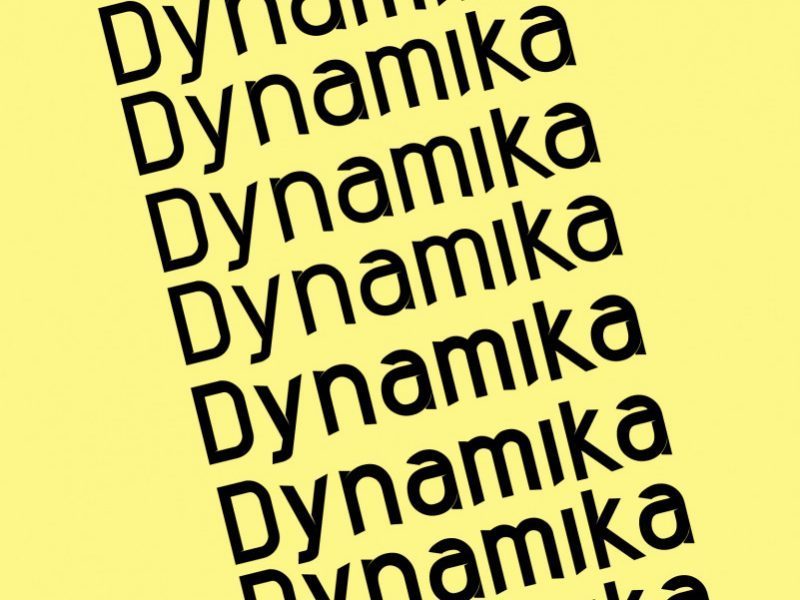
Dynamika Sans Typeface
This is dynamika, a 2-weight serifless type designed for title and body, the creation was inspired by the impression and attempt to perceive, unravel the dynamics of the human mind and the universe and their elements.